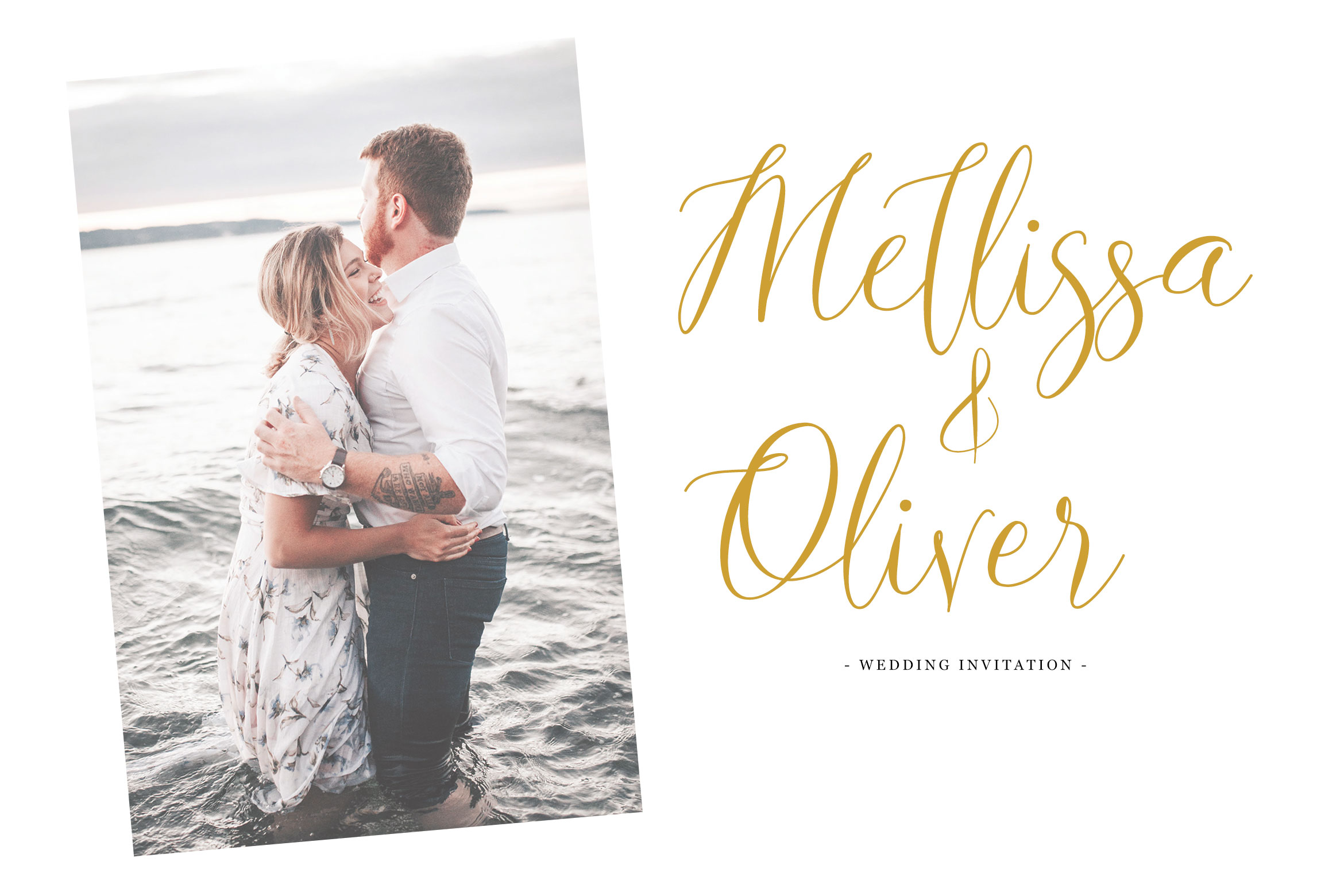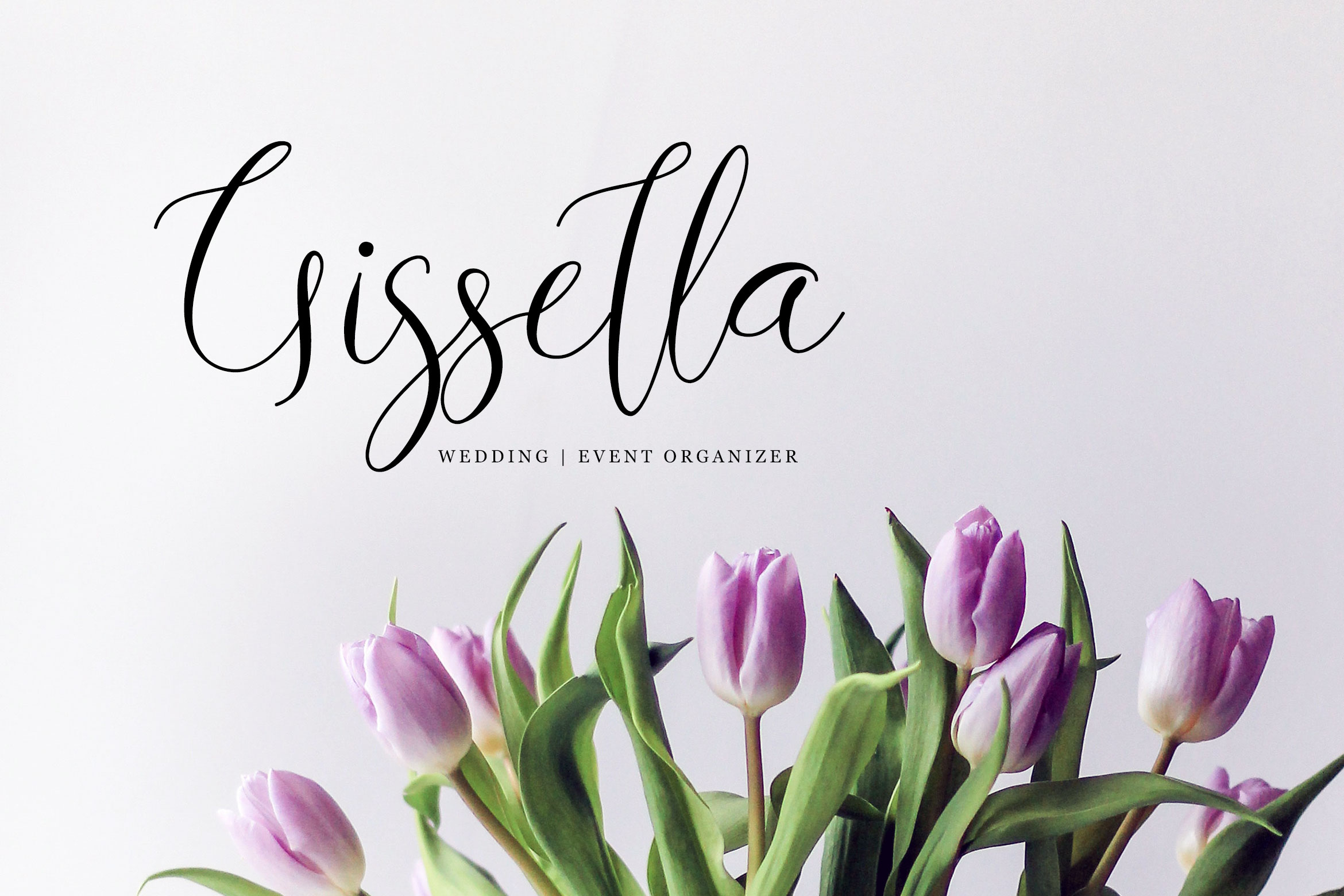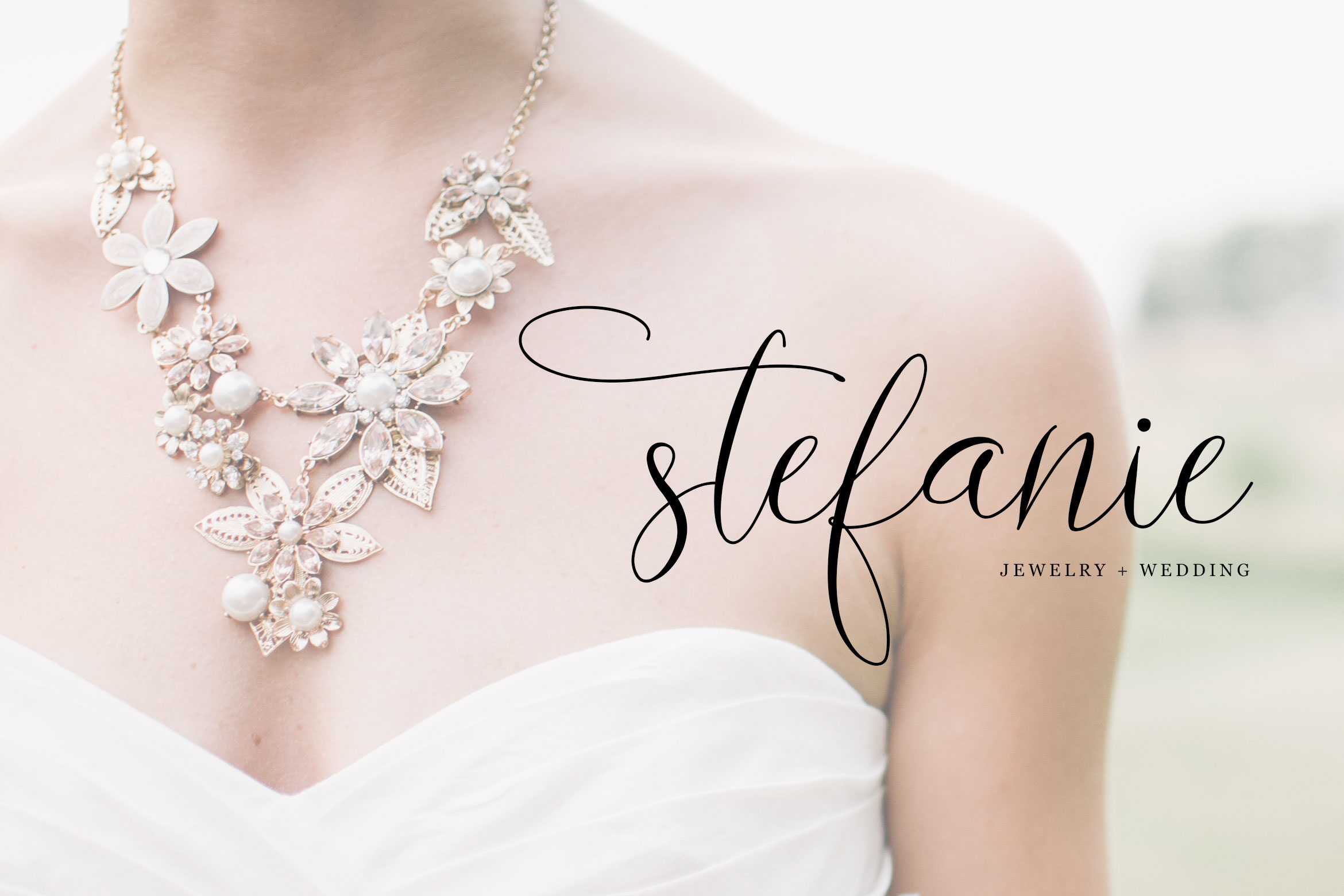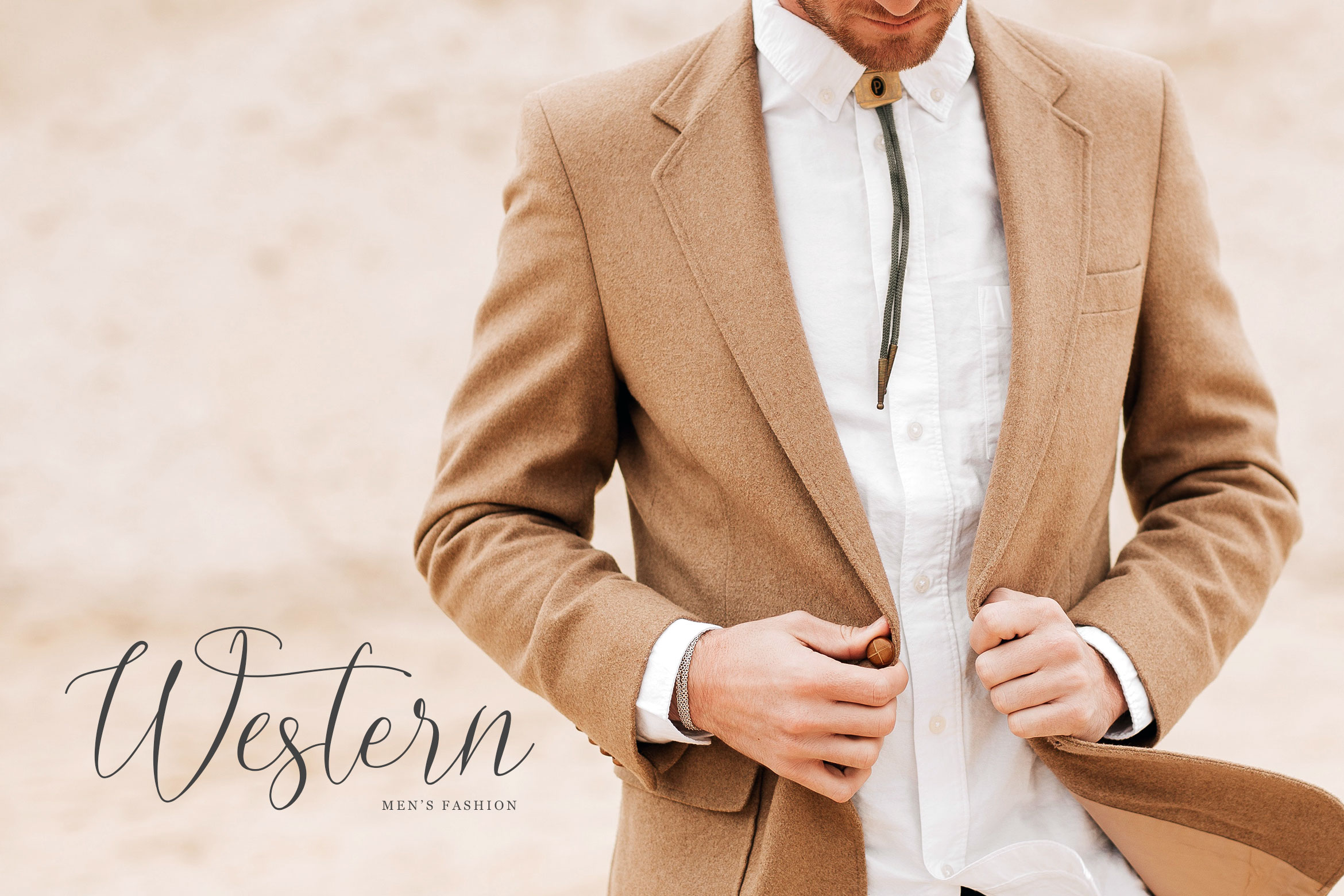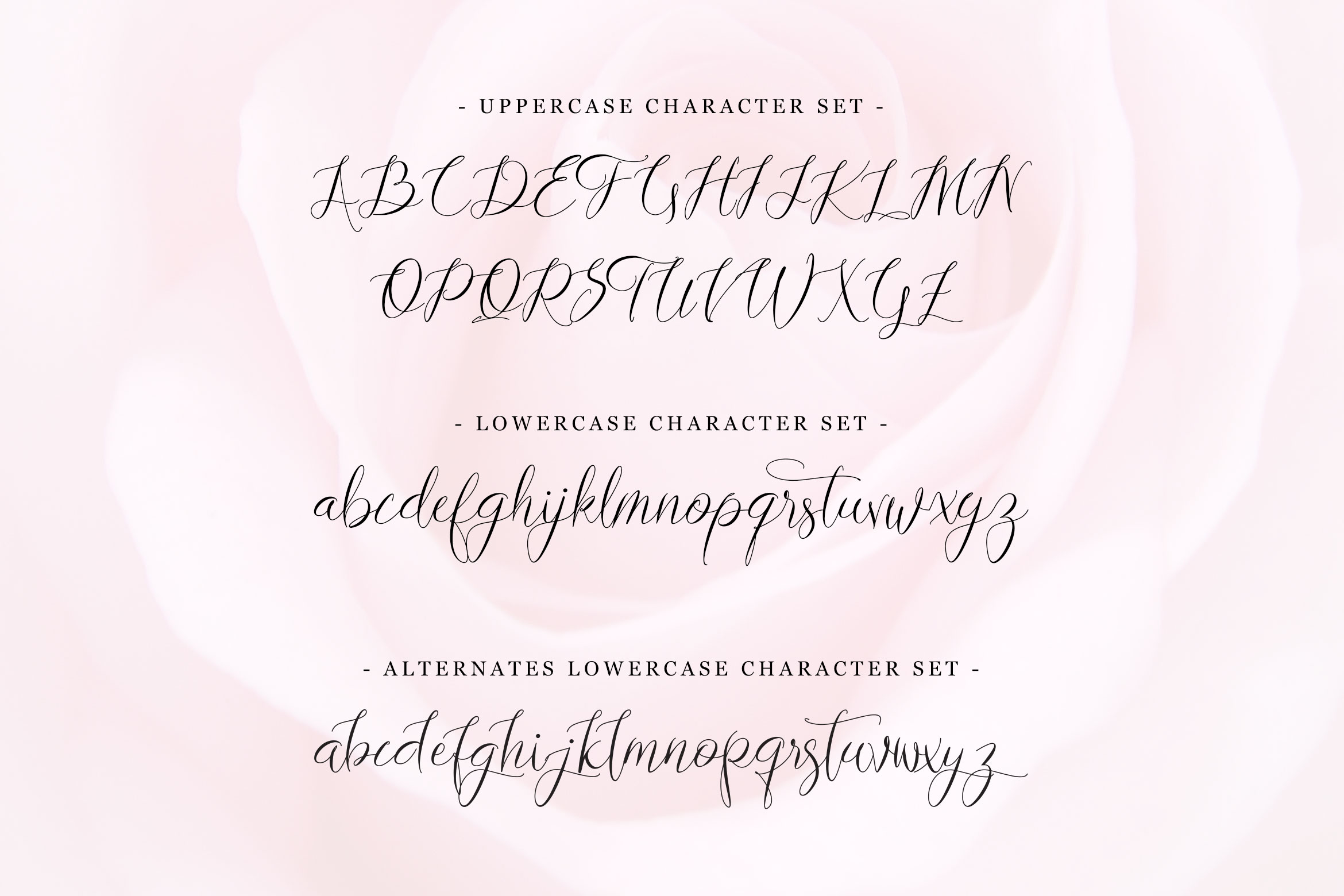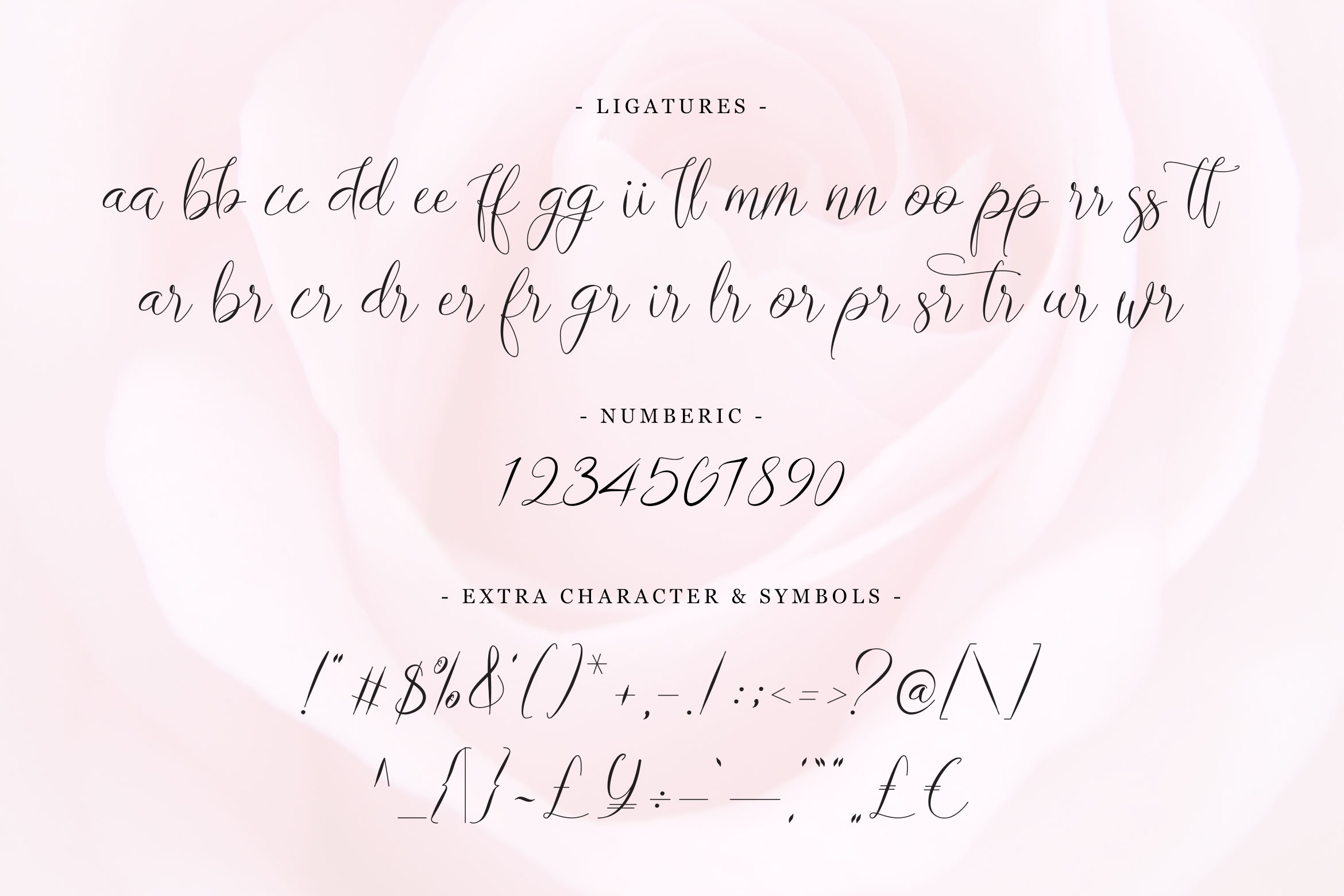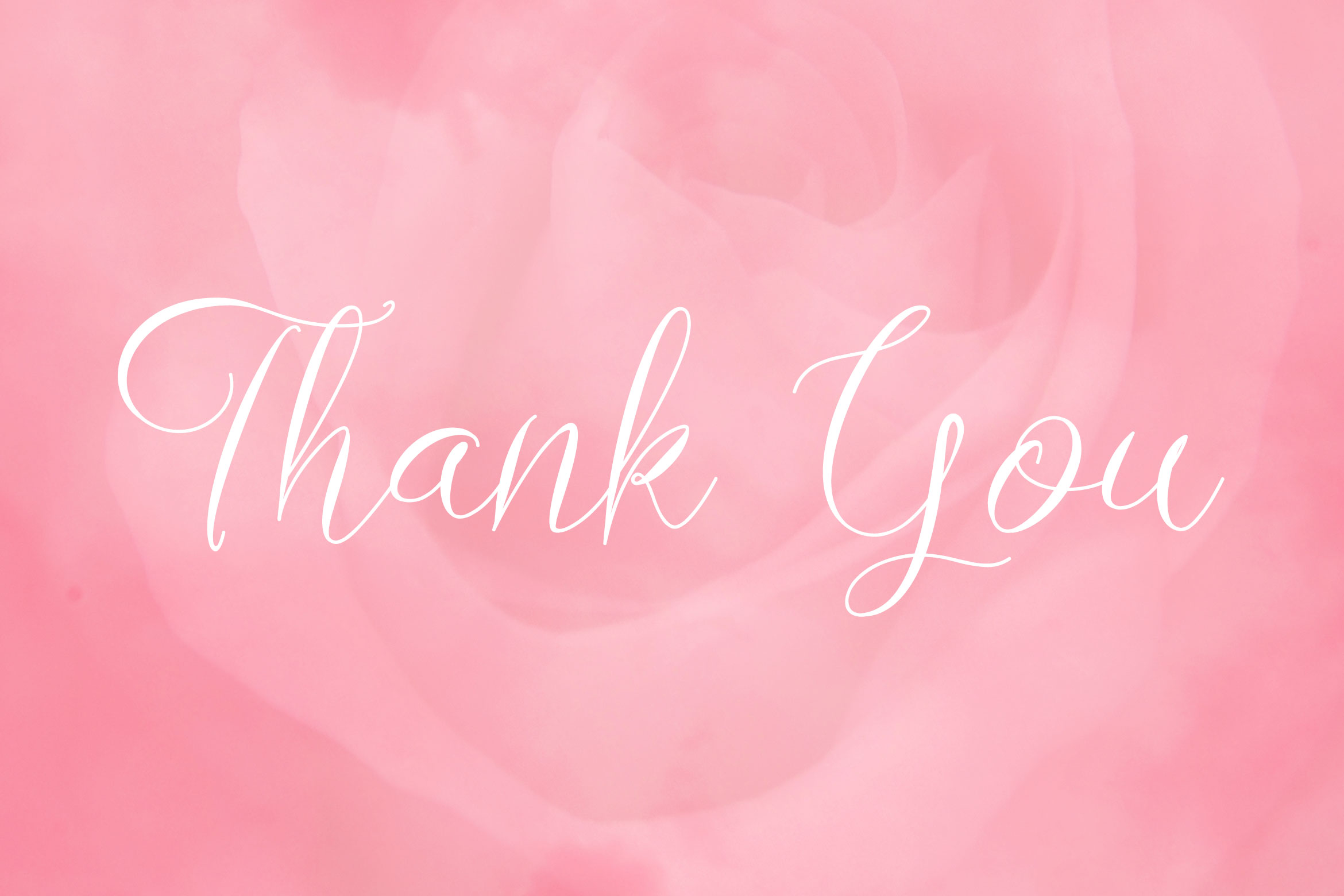
Lovestrong Font
About Lovestrong Font
Lovestrong is a beautiful, calligraphy font that looks completely at home in invitational and romantically themed projects. This font comes with stylistic alternate that come in an elegant style.